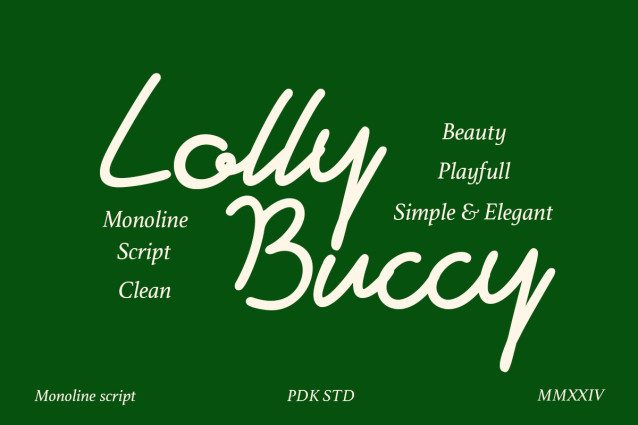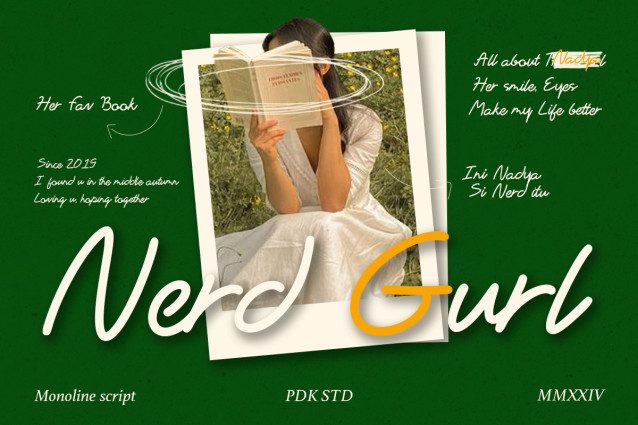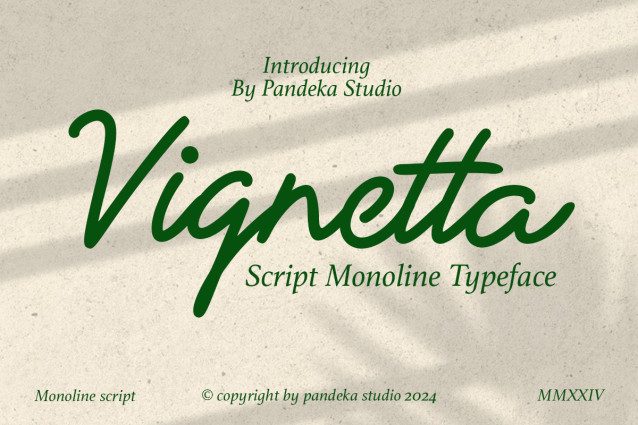
Vignetta Handwriting Font
Vignetta Handwriting Font – A sophisticated handwritten font that exudes elegance and modernity. Perfect for elegant branding, luxury logos, modern posters, wedding invitations, high-end packaging, and any project that demands a touch of class and refinement.